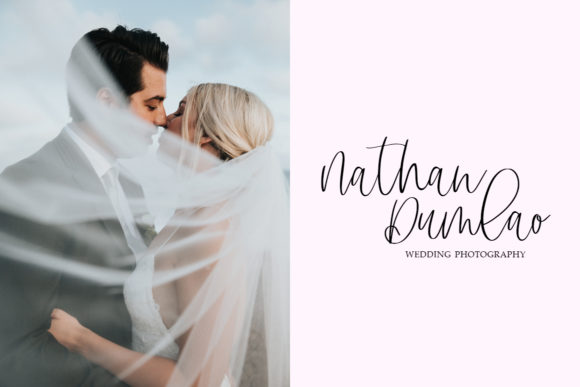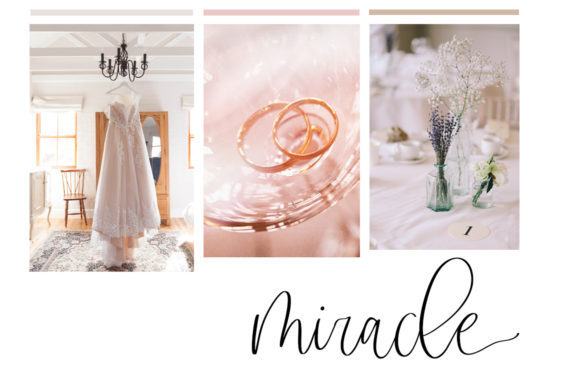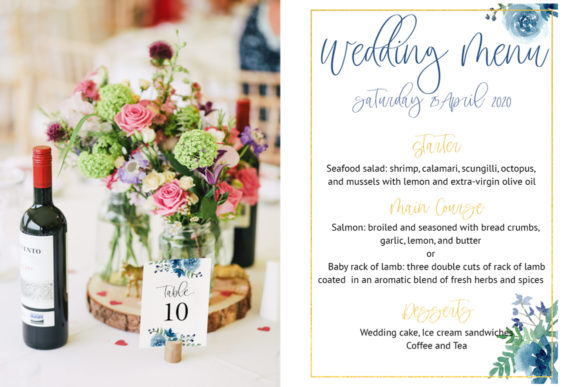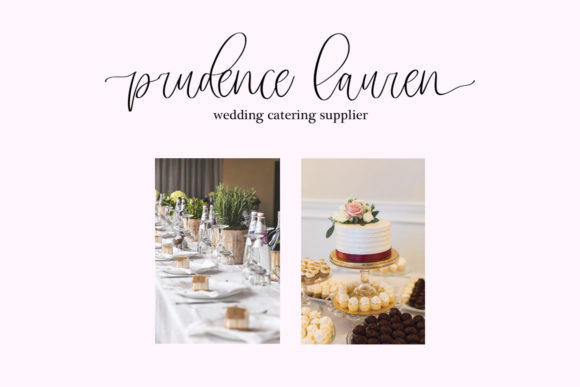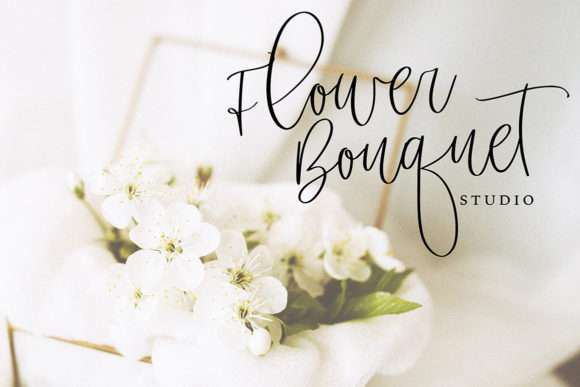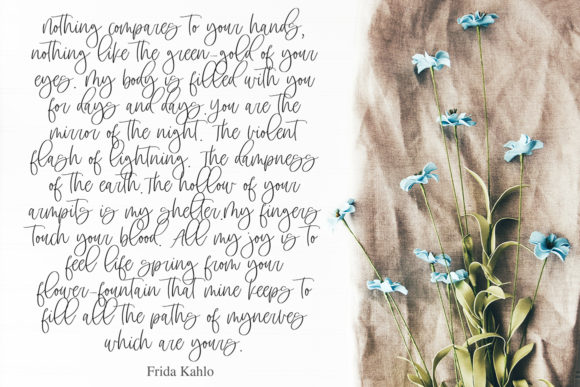
Have you ever stumbled upon a font that makes you feel like you’re holding a vintage romance novel in your hands? The way the letters dance across the page, the elegant curves, and the subtle flair for drama – it’s a moment that sparks creativity and sets your imagination ablaze. For designers, finding the perfect font can be a game-changer, elevating even the most mundane projects to new heights.
Enter the Apricot Camelia Font, a magical handwritten font that’s been carefully crafted to bring a touch of elegance and romance to your design projects. Whether you’re working on branding, headlines, wedding designs, or invitations, this font is sure to add a level of sophistication and whimsy that’s hard to resist.
With its versatility and charm, the Apricot Camelia Font is a valuable addition to any designer’s toolkit, capable of transforming even the most basic designs into stunning works of art.
Apricot Camelia Font Key Features
- Font Family: Apricot Camelia, a unique and elegant script font designed for various applications.
- Unique Characteristics: Features a flowing, handwritten style with subtle flourishes and ligatures, ideal for creating visually appealing text and titles.
Designer Review: Apricot Camelia Font
Apricot Camelia is a beautiful, elegant font that exudes sophistication and refinement. I love the intricate details and delicate curves that make it perfect for formal invitations, wedding stationery, or luxury branding. ✨ The font’s unique blend of classic and modern elements gives it a timeless quality that will never go out of style.
One of the standout features of Apricot Camelia is its versatility. It works equally well in print and digital formats, making it a great choice for a wide range of applications. ✨ The font is also highly customizable, allowing designers to tweak the spacing, size, and color to suit their specific needs.
While Apricot Camelia is a fantastic font, there are a few limitations to consider. ⚠️ One of the main drawbacks is its limited character set, which may not include all the characters you need for certain languages or applications. ⚠️ Additionally, the font can be quite dense, which may make it difficult to read at small sizes.
Overall, I’m impressed with Apricot Camelia’s beauty, elegance, and versatility. While it may have some limitations, it’s a great choice for designers who want to create high-end, sophisticated designs. With a little creative tweaking, this font can be used to create truly stunning visuals that will leave a lasting impression.
- Elegant, refined design
- Unique blend of classic and modern elements
- Versatile and highly customizable
- Suitable for print and digital formats
- Limited character set
- Can be dense at small sizes
Tips for Getting the Most Out of Apricot Camelia Font
Use the Apricot Camelia Font for titles, headings, and emphasis.
Pair it with other elegant fonts for a balanced look.
Branding and marketing materials.
Editorial and design projects.